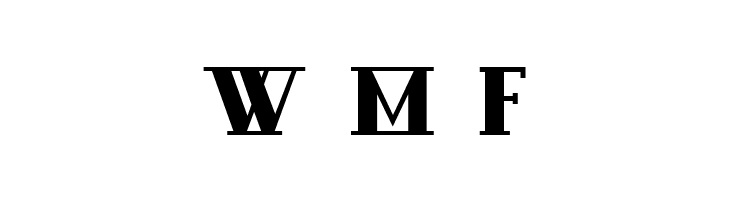
A bold, playful font with thick, rounded strokes and a whimsical style.
A whimsical and decorative font with intricate curls and swirls.
A modern font with angular letterforms and a blend of classic and contemporary styles.
A bold, 3D-effect font with sharp angles and a dynamic style.
A casual, handwritten font with a playful and informal style.
A bold decorative font made up of filled arrow symbols in diverse styles.
A diverse set of speech and thought bubble designs for creative projects.
A bold, artistic serif font with sharp angles and smooth curves.
A decorative, nature-inspired font with intricate, vine-like details.
A bold, gothic-style font with sharp, intricate details.
A dynamic, expressive handwritten font with irregular, playful strokes.